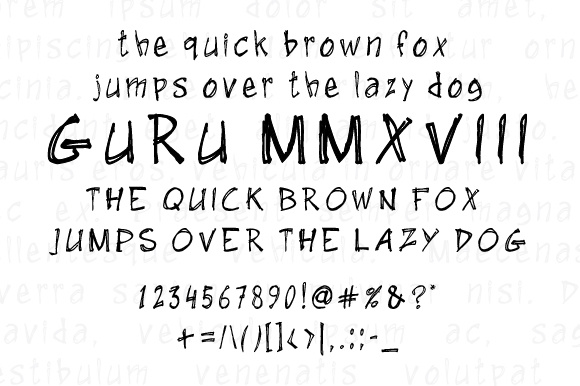
GuRu MMXVIII Font
About GuRu MMXVIII Font
GuRu MMXVIII is a fun and playful handwritten font, perfect for lighthearted and youthful themes. This font has a sketchy type of quality, and works in casual projects.